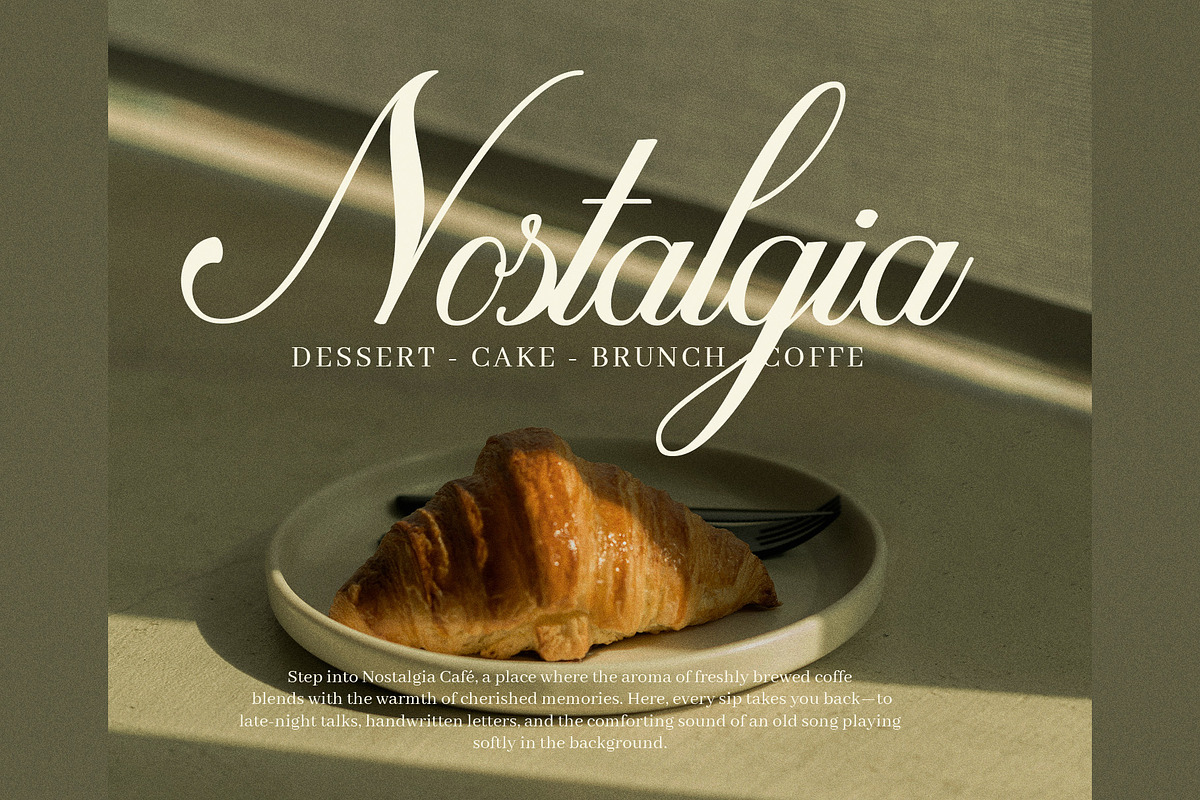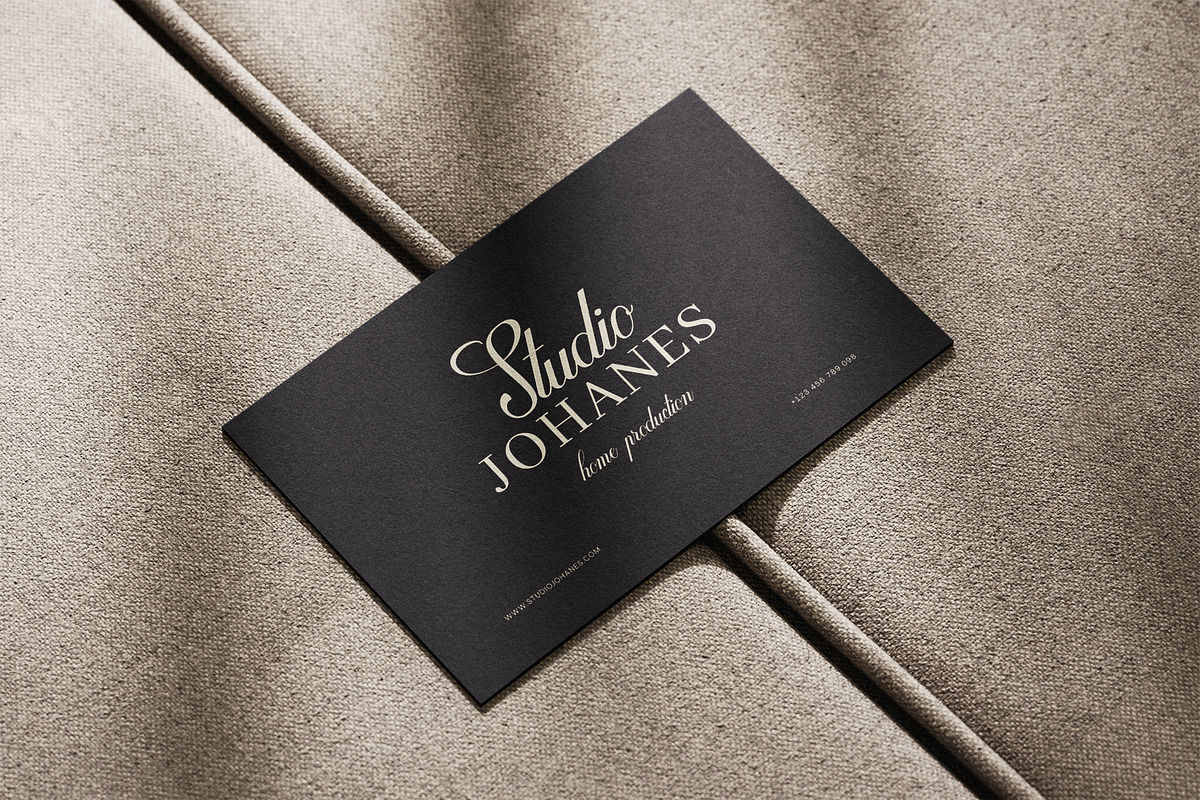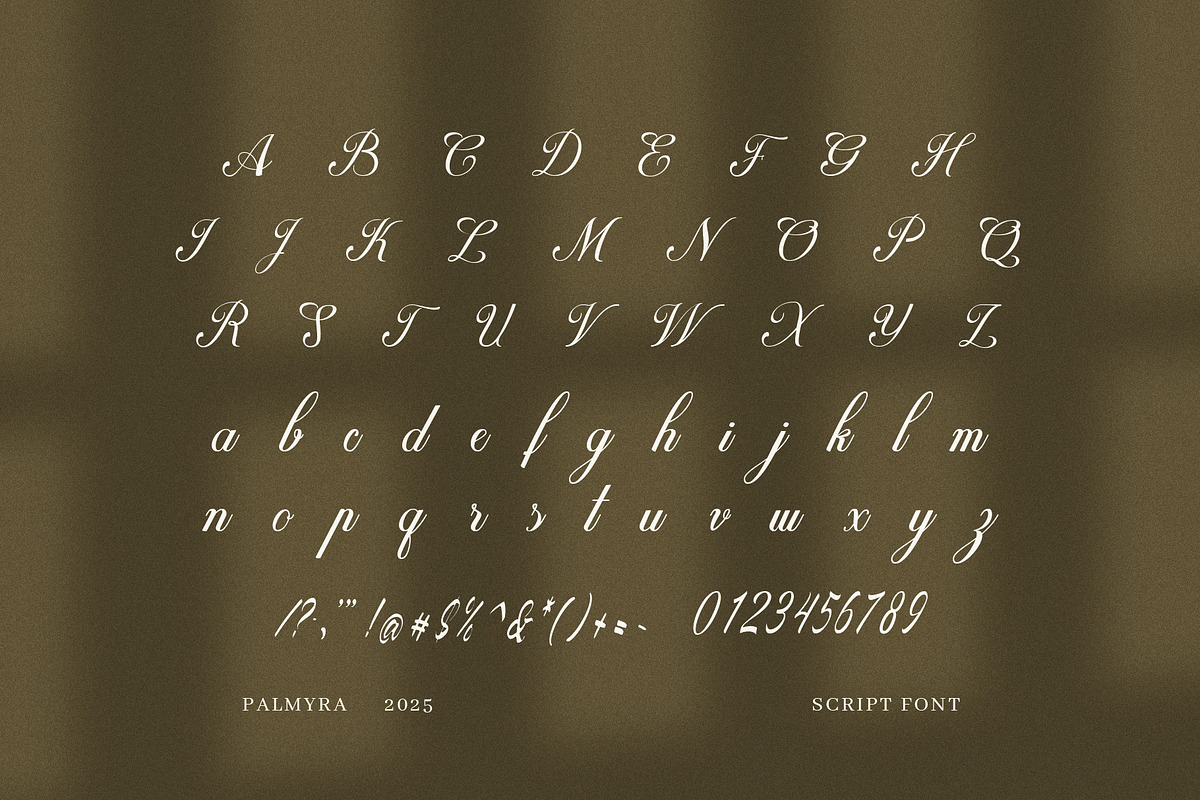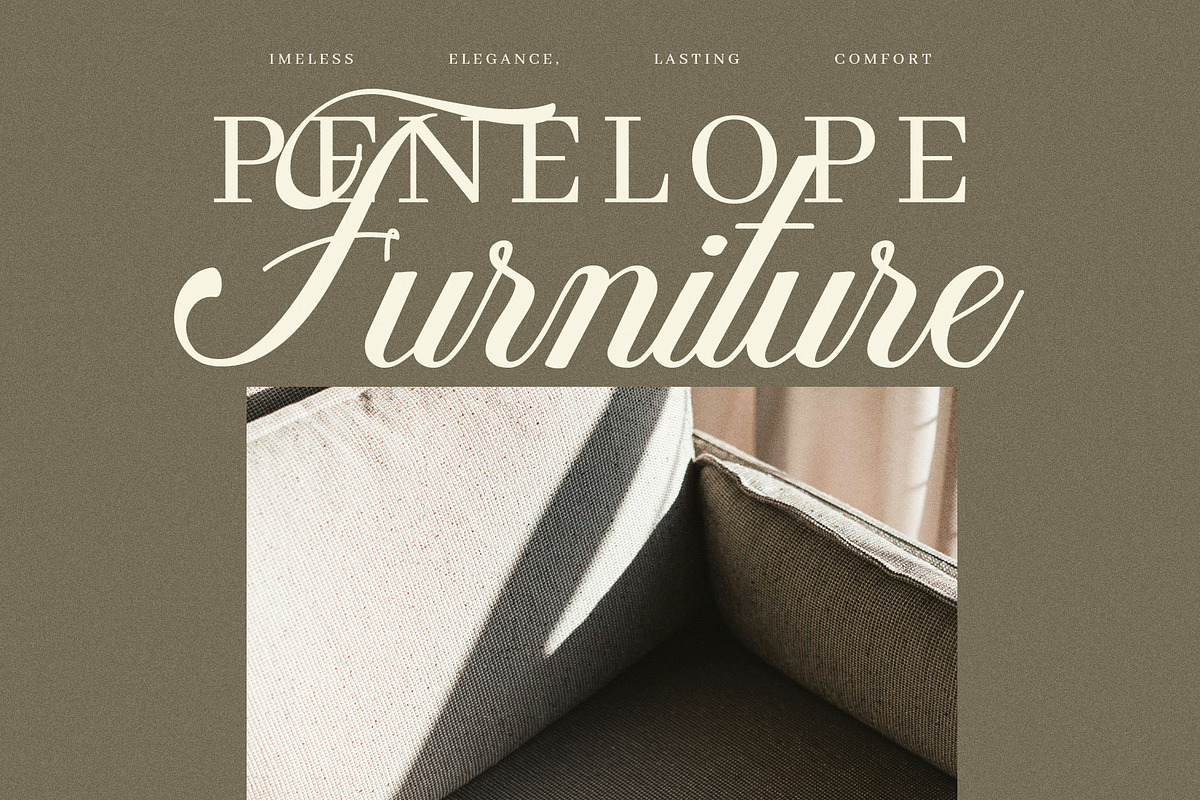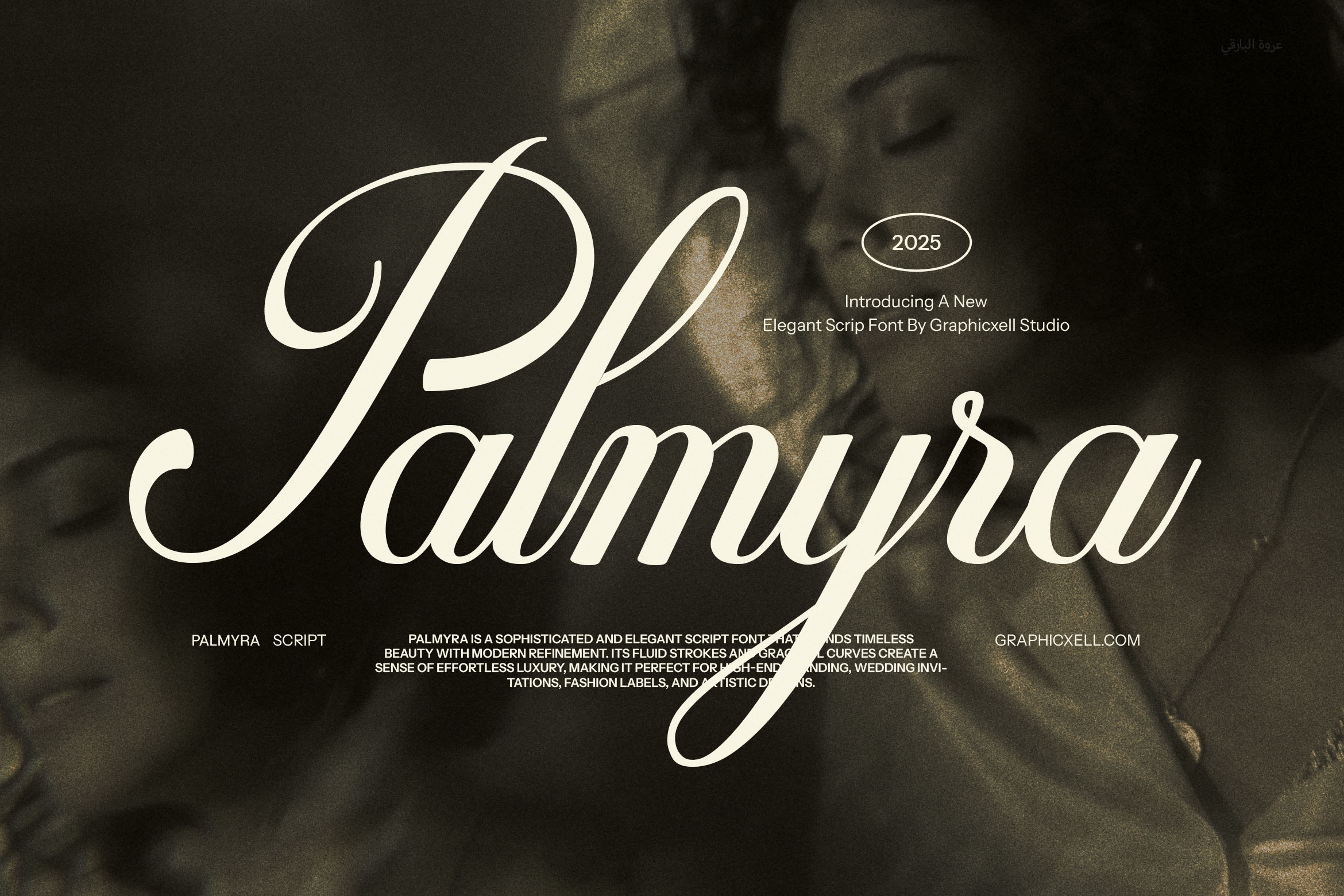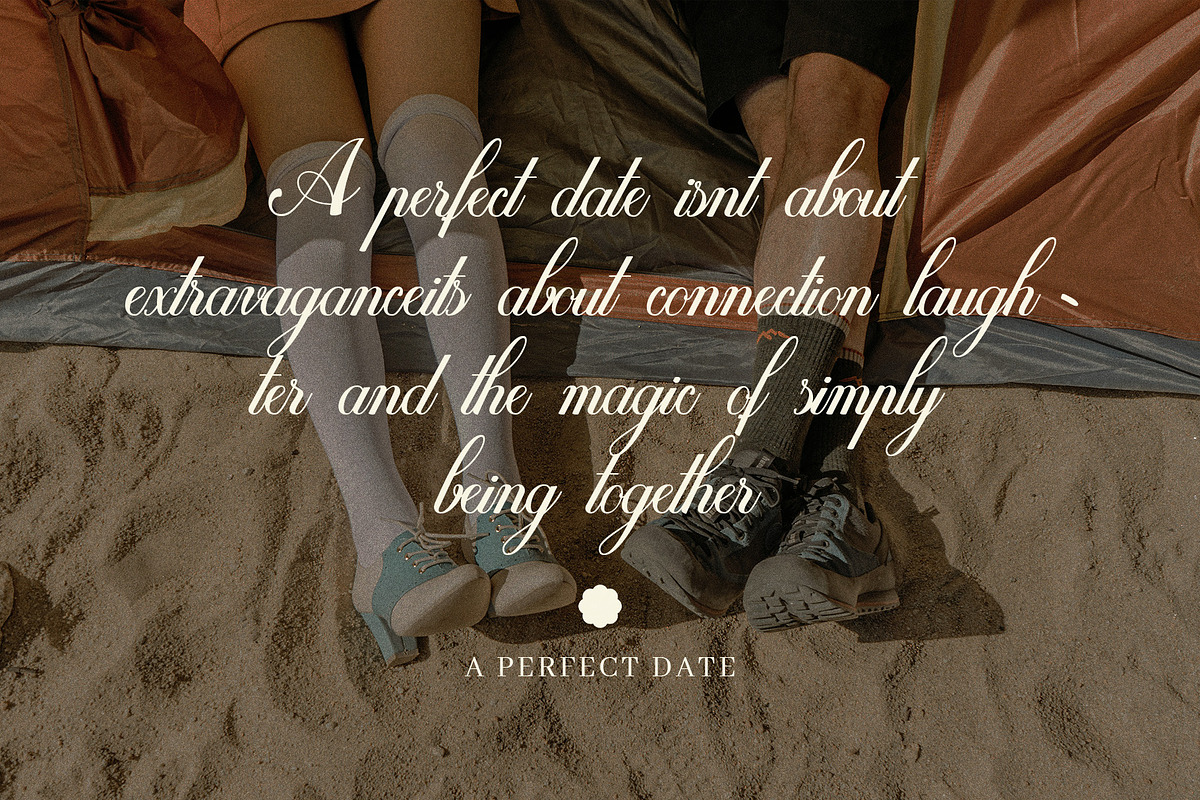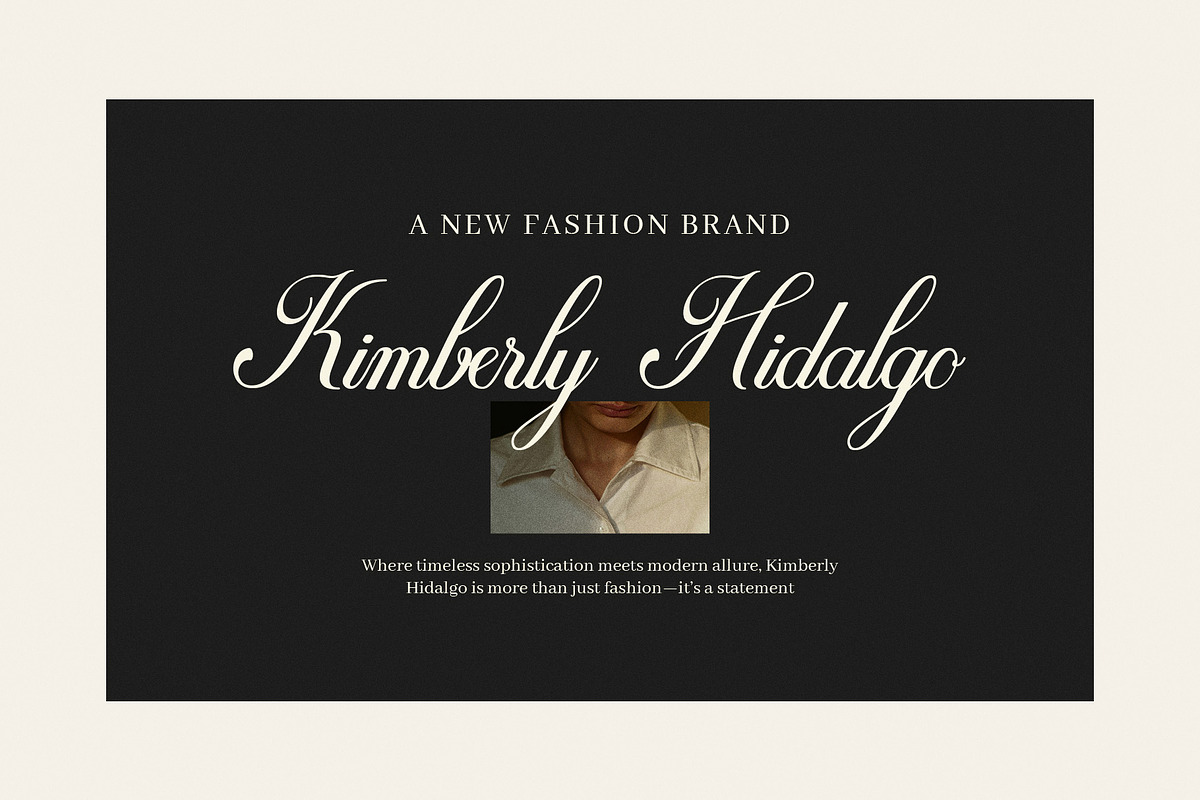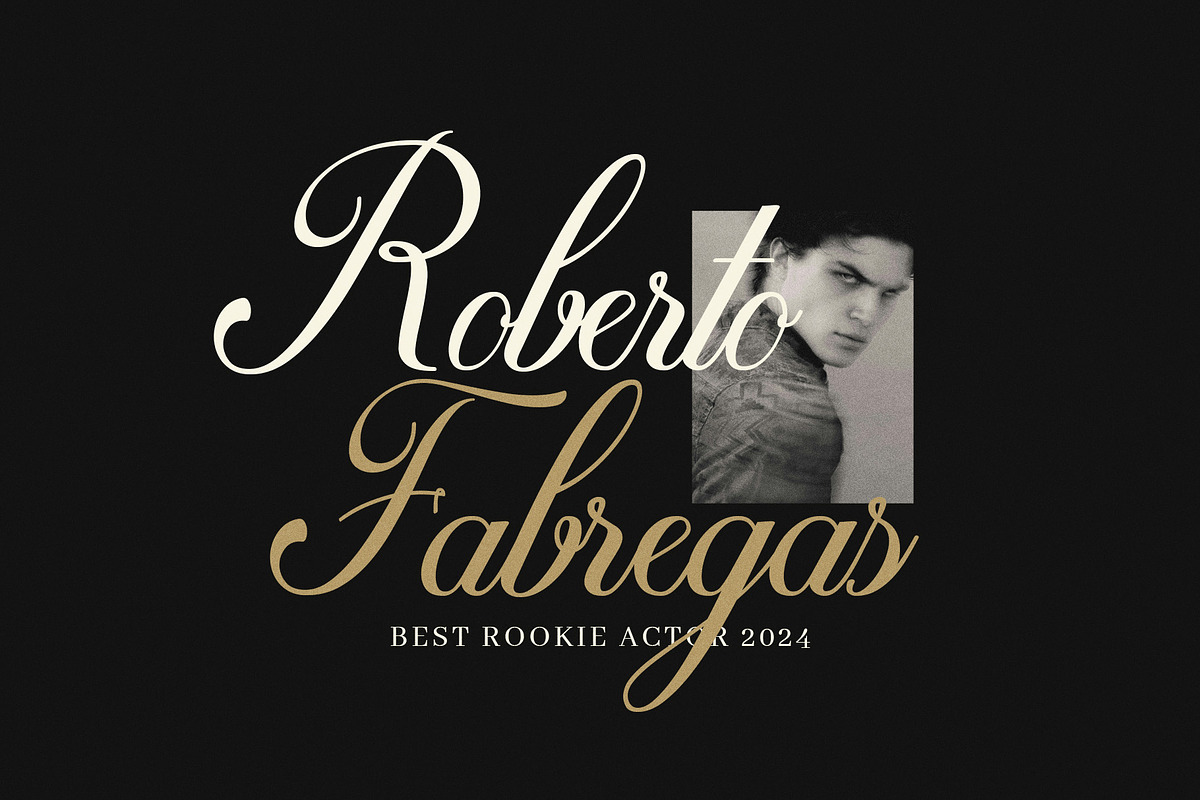
Palmyra Script Font
Palmyra Script Font is a refined and graceful typeface that blends the timeless beauty of handwritten script with modern sophistication. Designed to bring a soft yet striking presence to your work, Palmyra features flowing lines, elegant letterforms, and a wealth of calligraphic alternates that offer a truly custom feel. This script font is perfect for projects that demand a touch of class and personality.
From wedding invitations to brand identities, album covers, and social media graphics, Palmyra adapts effortlessly to a wide range of design styles. Its beautifully crafted ligatures and stylistic alternates let you create stunning typographic combinations that feel both organic and artistic. Whether you're designing for a luxury boutique, a magazine layout, or a personal signature logo, this font adds a touch of charm and sophistication.
Let your creativity flow with Palmyra Script Font, a stylish and versatile script typeface that brings warmth, character, and elegance to every word. With its romantic curves and handcrafted feel, Palmyra is more than just a font—it’s a signature of beauty in design.